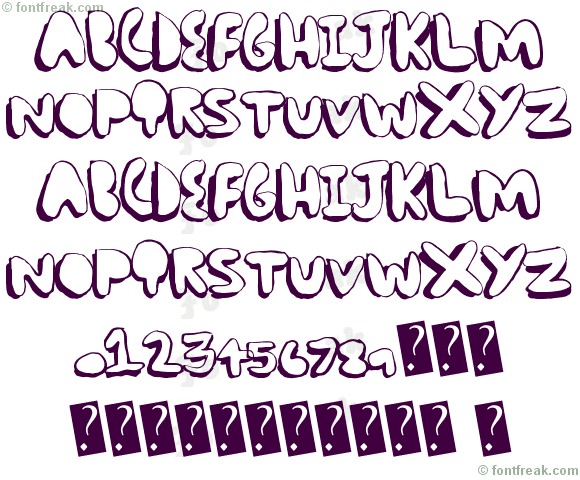
ComicChub
About ComicChub
ComicChub by Xerographer Fonts is a captivating display font that perfectly balances whimsy and readability. Known for its playful design, this font stands out in the realm of comic and cartoon-inspired typography. Characterized by its rounded shapes and bold stroke weight, ComicChub features a unique style that evokes a sense of fun and creativity. The contrast in its letters is minimal, allowing for a harmonious flow that is easy on the eyes. The spacing is thoughtfully designed to enhance legibility while maintaining a light-hearted feel, making it ideal for various applications.
ComicChub is exceptionally versatile, making it suitable for a range of creative projects. Its playful aesthetic is perfect for children's book covers, where it can engage young readers. Additionally, it shines in the realm of movie posters, particularly for family-friendly films, where its lively character can draw attention. Restaurant menus also benefit from ComicChub's cheerful vibe, making dining experiences feel more inviting and enjoyable. Small business owners looking to create a memorable brand image will find this font invaluable for logos and promotional materials that resonate with a broad audience.
In a crowded font marketplace, ComicChub stands out due to its distinctive playful style and versatility. Its ability to convey personality while remaining functional makes it a must-have for anyone looking to add a touch of humor and creativity to their designs. Whether for professional projects or personal use, ComicChub is sure to leave a lasting impression.